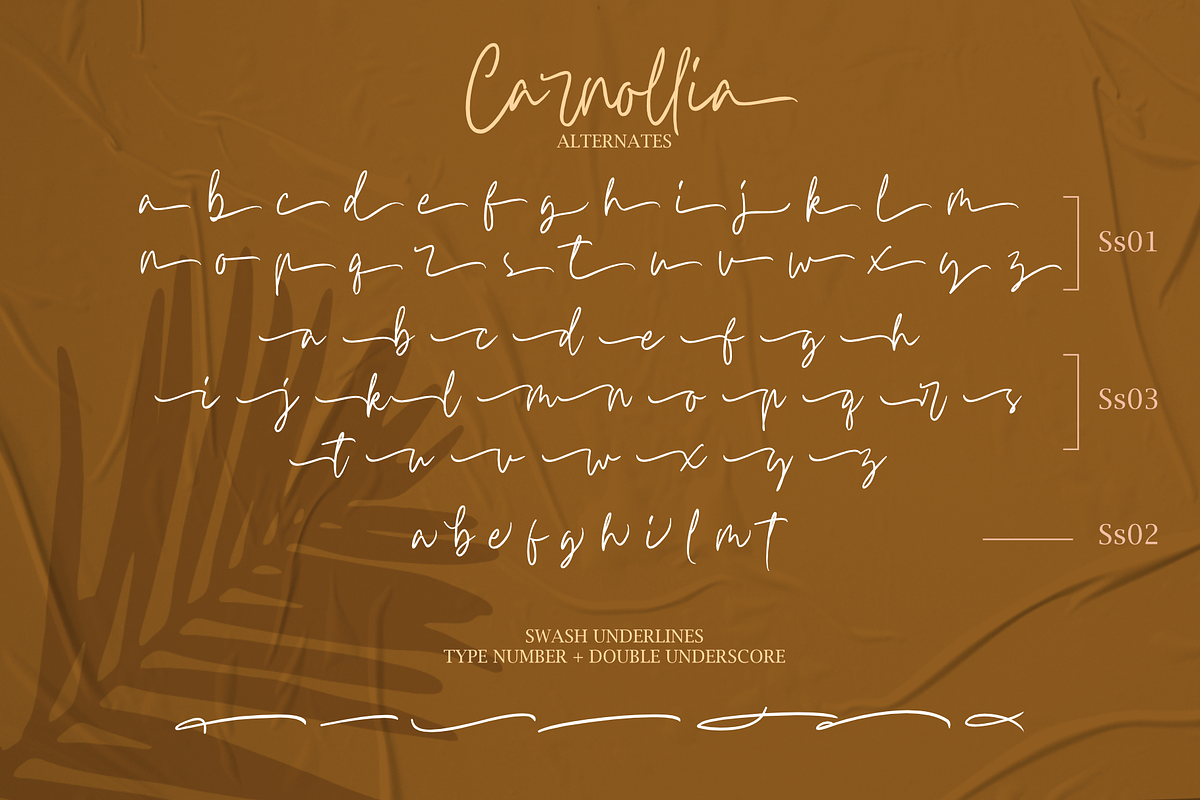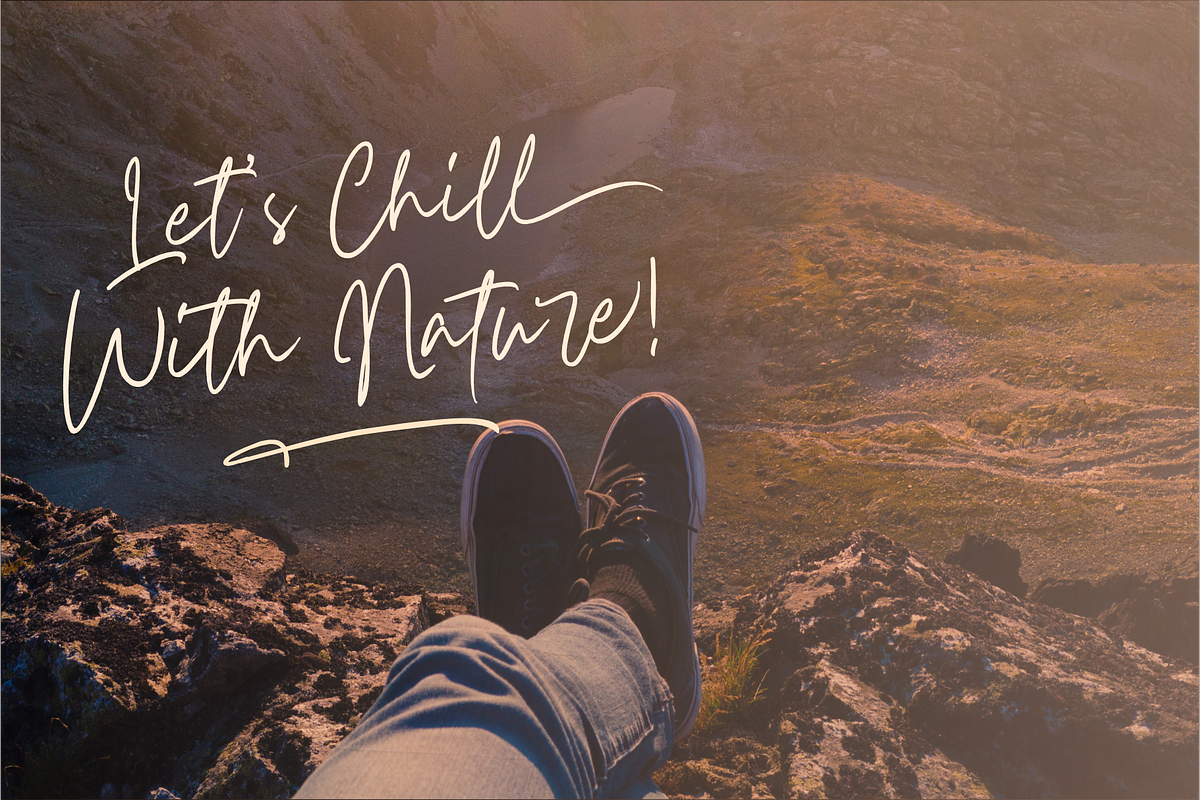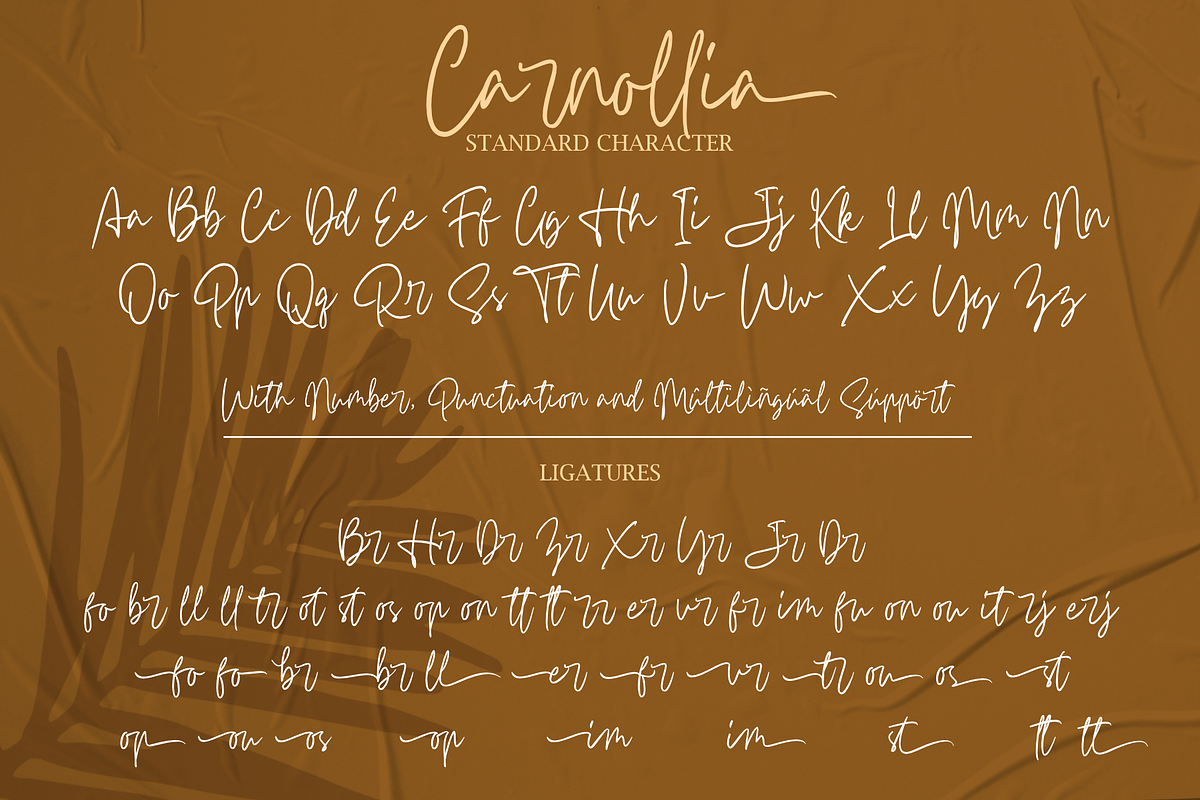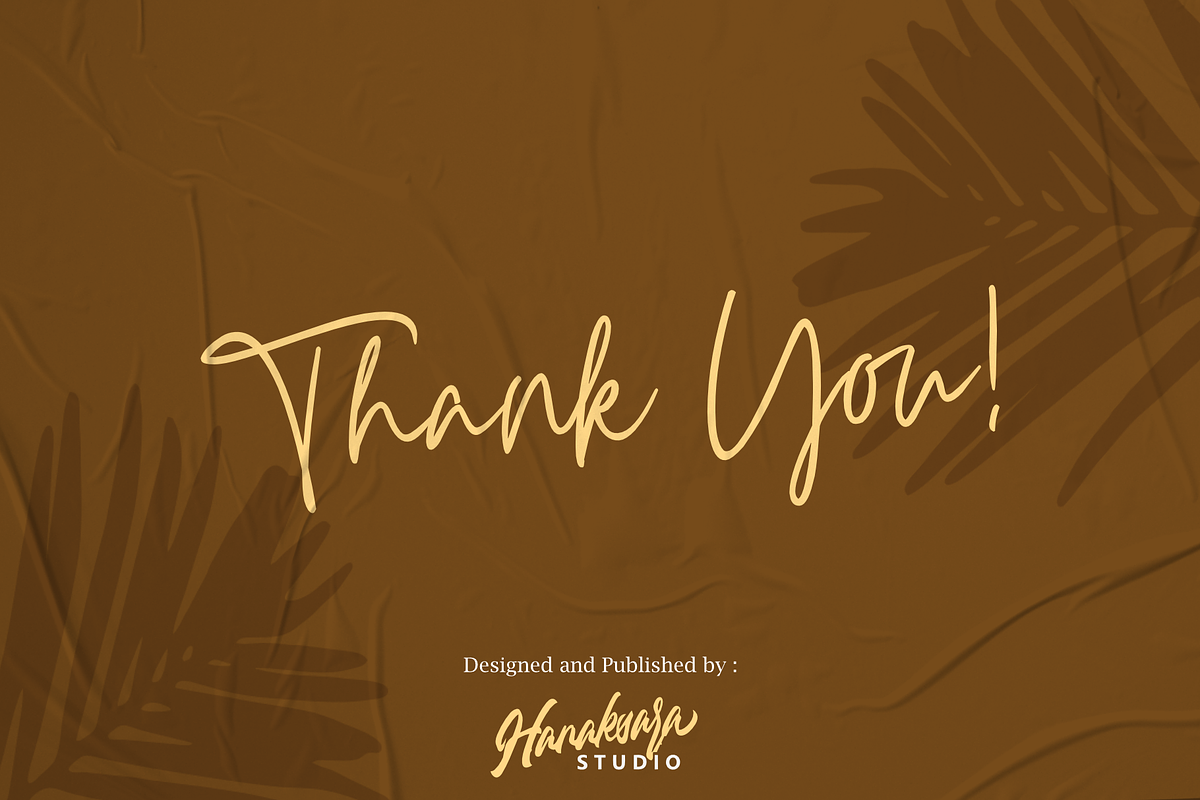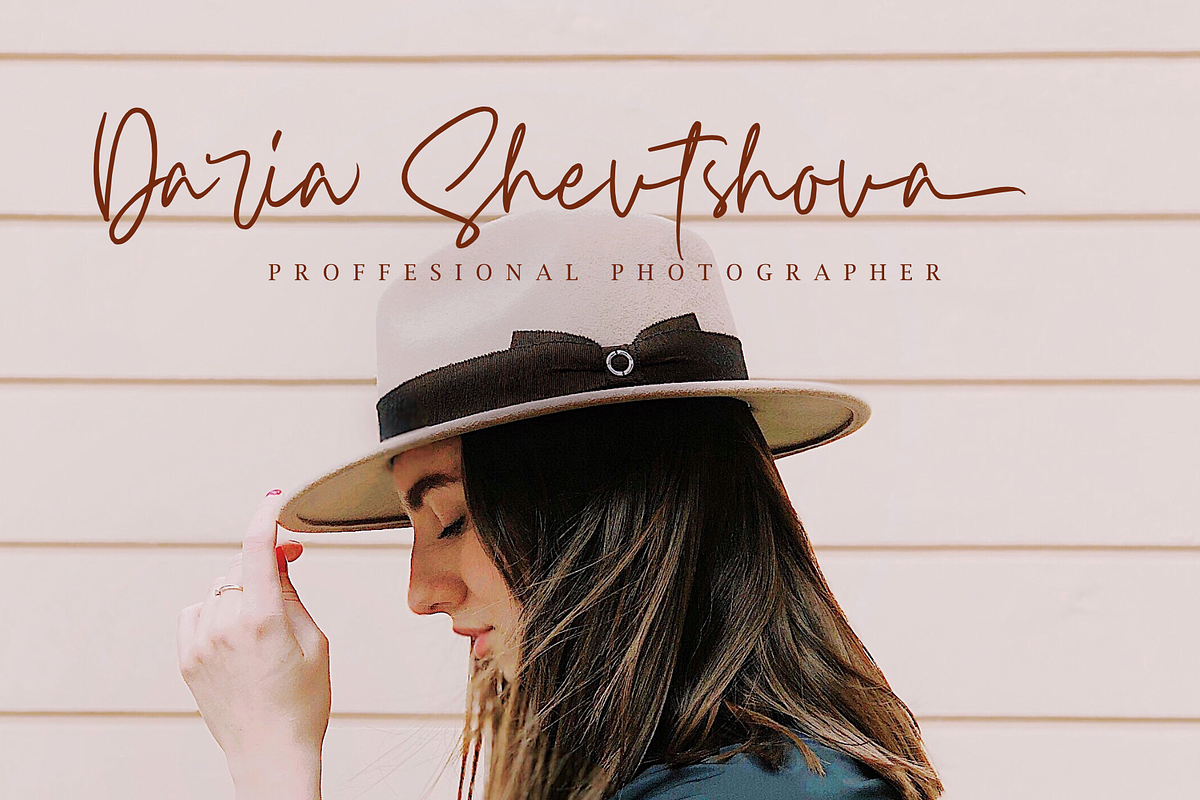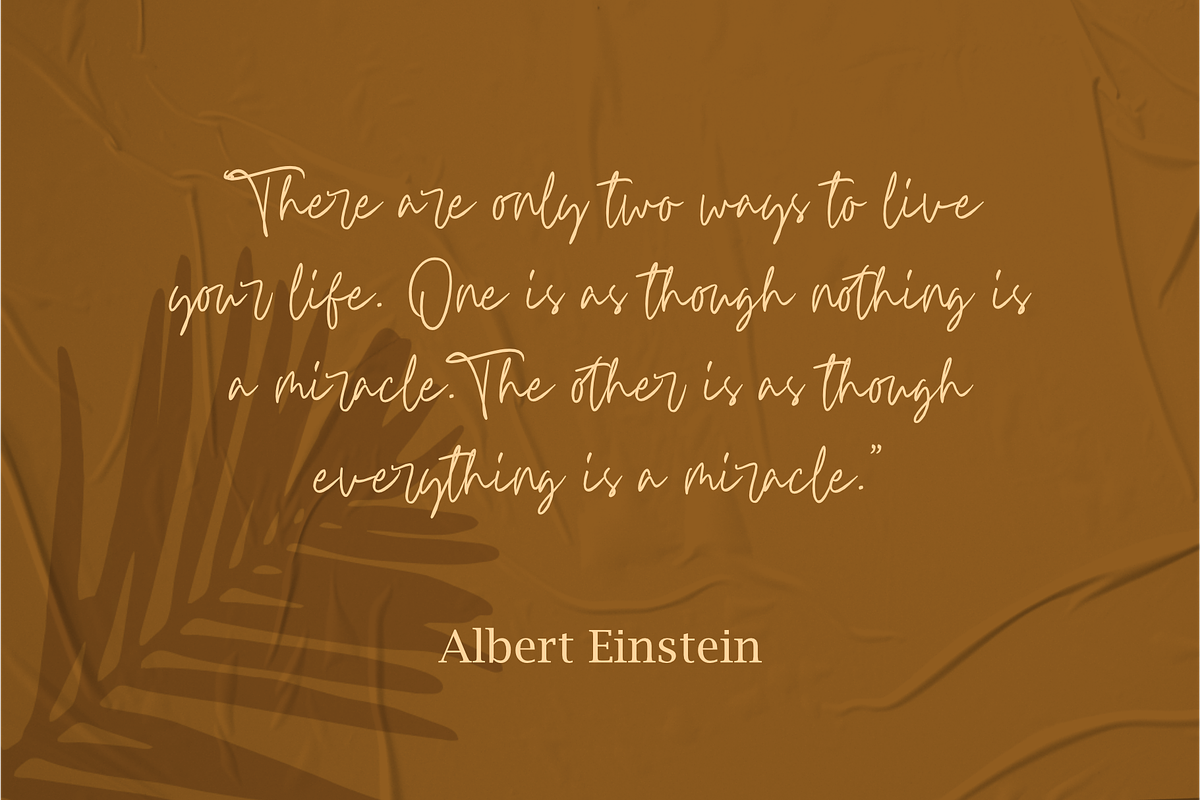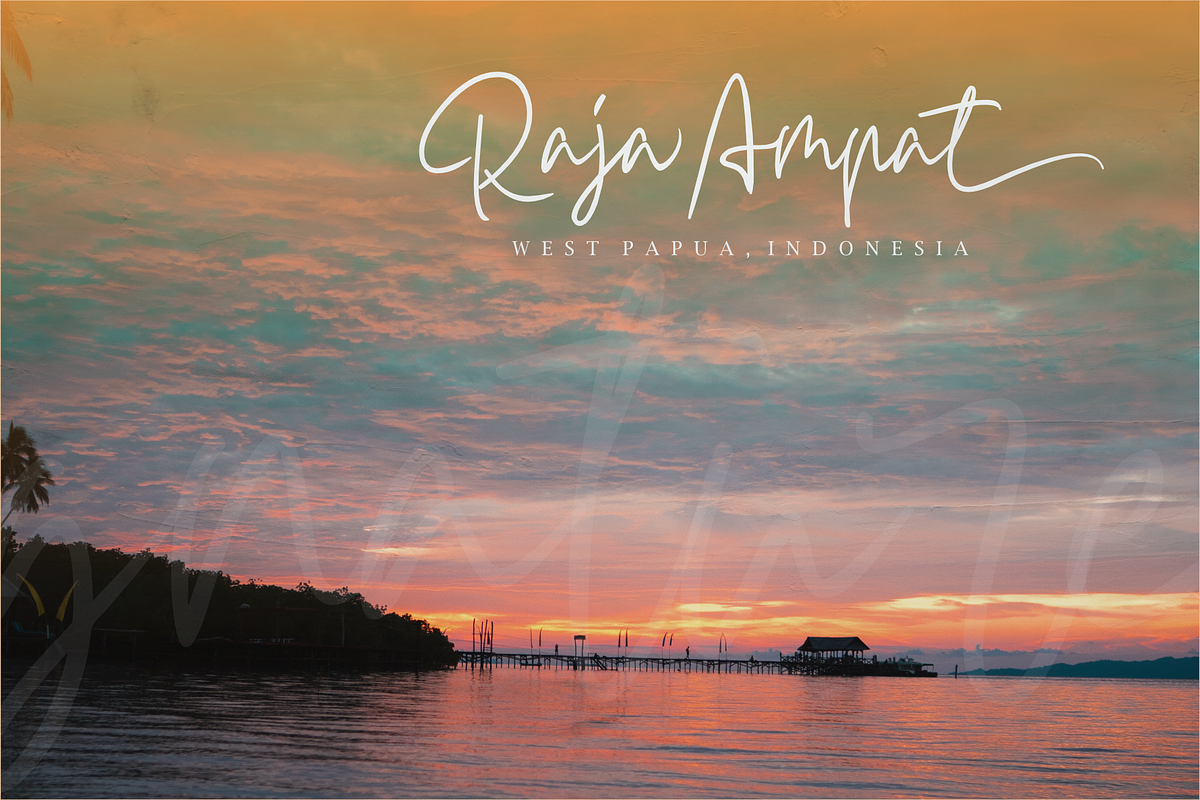
Carnollia Signature
Introducing our new product, "Carnollia Signature" - a stylish signature font with modern and natural handwriting impression
Carnollia signature is very fresh with unique handwriting style. And it's perfectly suited to logo, poster, wedding details, postcard, branding, apparel, tagline, quotes, and much more
Carnollia signature was included with more than 100 glyph PUA encoded. So you can find in this font : 3 Sets of lowercase Stylistic Alternates, Underline Swash, and more than 40 ligatures. So find your style with Carnollia Opentype features!
Adjustments to the letter 'a,' which previously appeared similar to 'u,' and other optimizations.